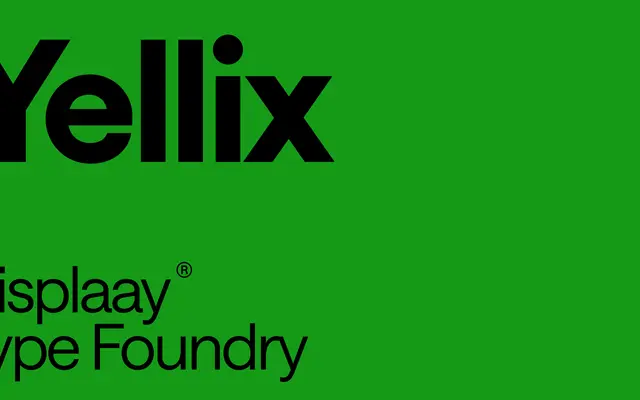
A geometric sans built on pure geometry with straight terminals, offered in eight weights with italics and a two-axis variable font spanning weight and slant.
Sixteen styles cover Thin through Black with matching italics, all shaped by consistent geometric construction and straight-cut terminals that give the family a precise, contemporary edge. A variable font with weight and slant axes allows fluid interpolation across the range. The overall character suits editorial, branding and display work where a clean, modern geometric sans is required.
Described explicitly as built on pure geometry with straight terminals and smooth connections, placing it firmly in the geometric sans-serif tradition with a contemporary, clean character.